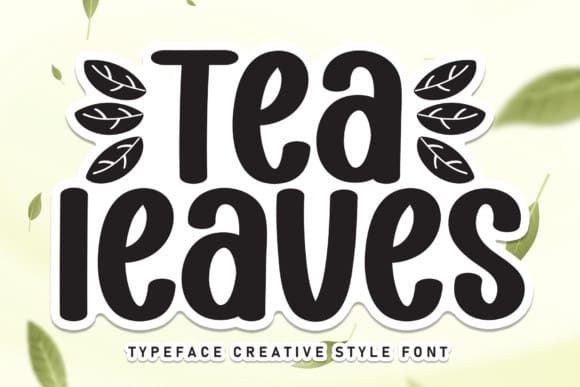
Tea Leaves Font
Tea Leavesis Font a sweet and friendly handwritten font. Add it to your designs and watch them come alive. It is suitable for use on invitations, cards, watermarks, social media and more.